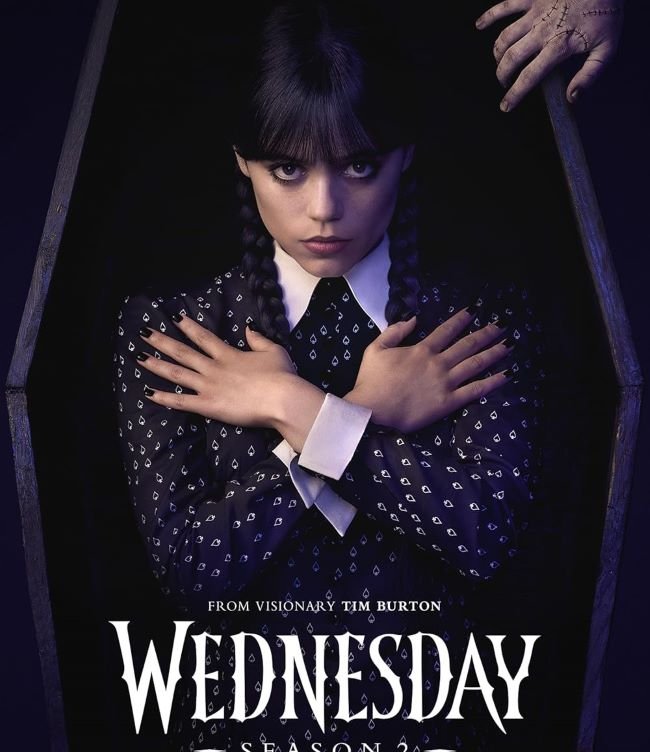
Wednesday font — designed by Bran — finds the precise typographic register that Tim Burton’s 2022 Netflix series required: Victorian elegance processed through a contemporary gothic sensibility, with serif letterforms that carry genuine historical weight while remaining readable and modern font enough to function as a streaming platform title rather than a museum exhibit.
The typeface sits at the intersection of dark academia and high-gothic horror, which is exactly where Nevermore Academy itself sits — a prestigious boarding school that happens to be full of monsters, administered by people who are entirely comfortable with that arrangement.